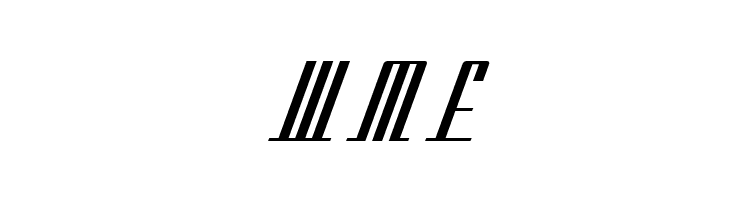
Nexa-Trial Extra Bold Italic Font
- Font: Nexa-Trial Extra Bold Italic
A bold, italicized font with elongated, narrow characters and a dynamic, modern style.